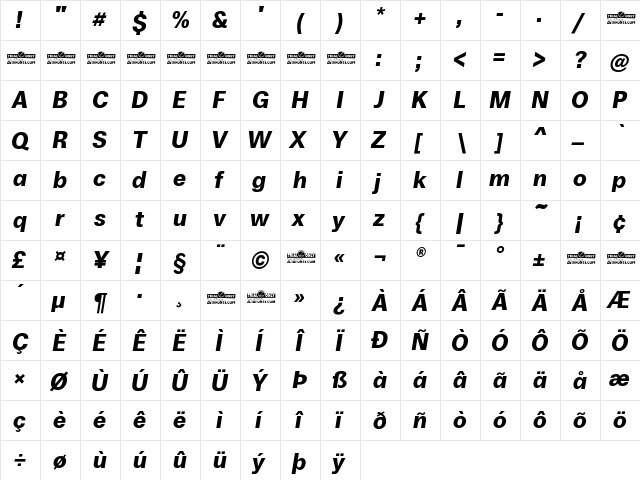
Boring Sans A Trial Bold Italic
| Foundry | Zetafonts |
| Designer | Cosimo Lorenzo Pancini |
Design Context for Boring Sans A Trial Typeface
Boring Sans A Trial offers clean, dependable letterforms without strong stylistic allegiance, making it a practical choice for designers who need flexibility. Its italic angle brings a sense of urgency and motion to the letterforms. Its bold stroke weight gives it real presence on the page.